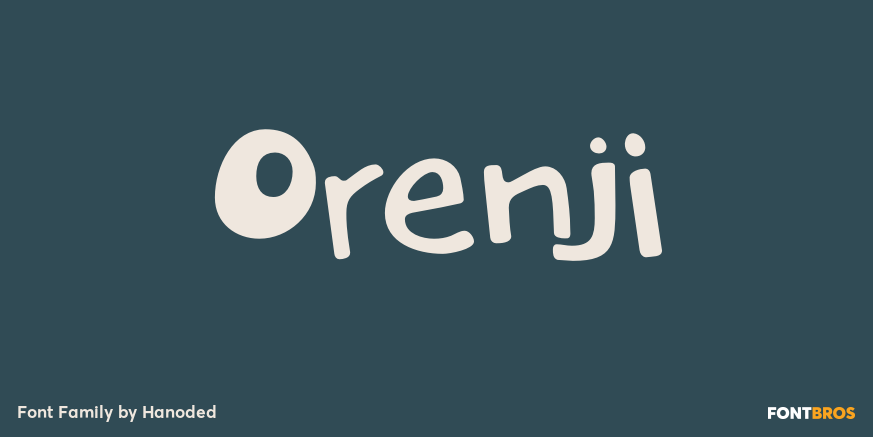
Orenji
About Orenji
Orenji is the Japanese word for Orange: it is a phonetic translation of the English word. I was actually looking for a certain shade of orange (the color), when I stumbled upon this fun word. I already toyed with the idea of creating a font loosely based…